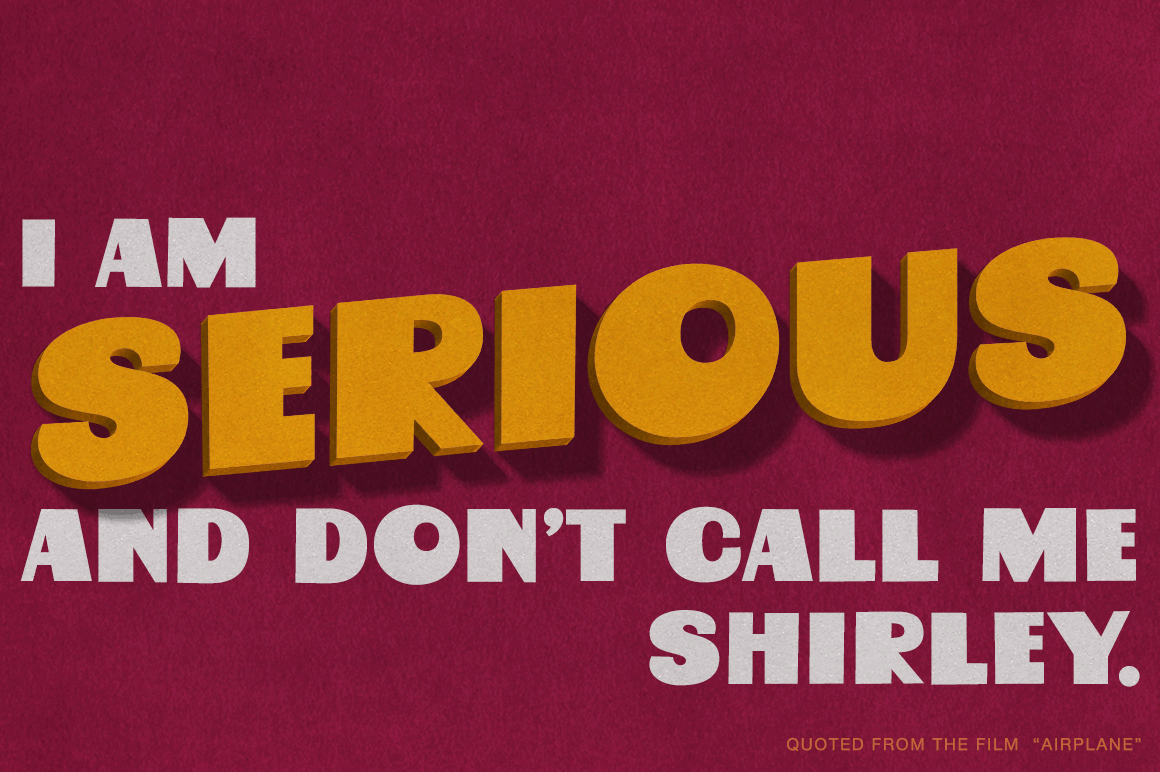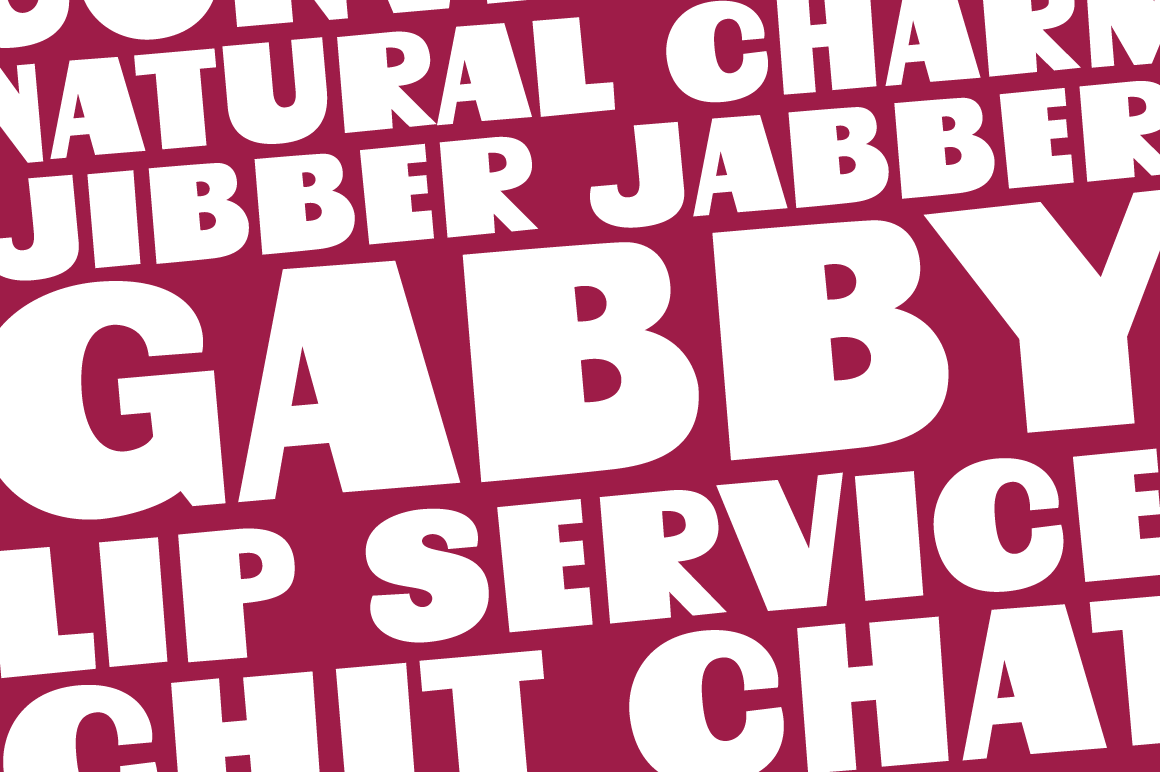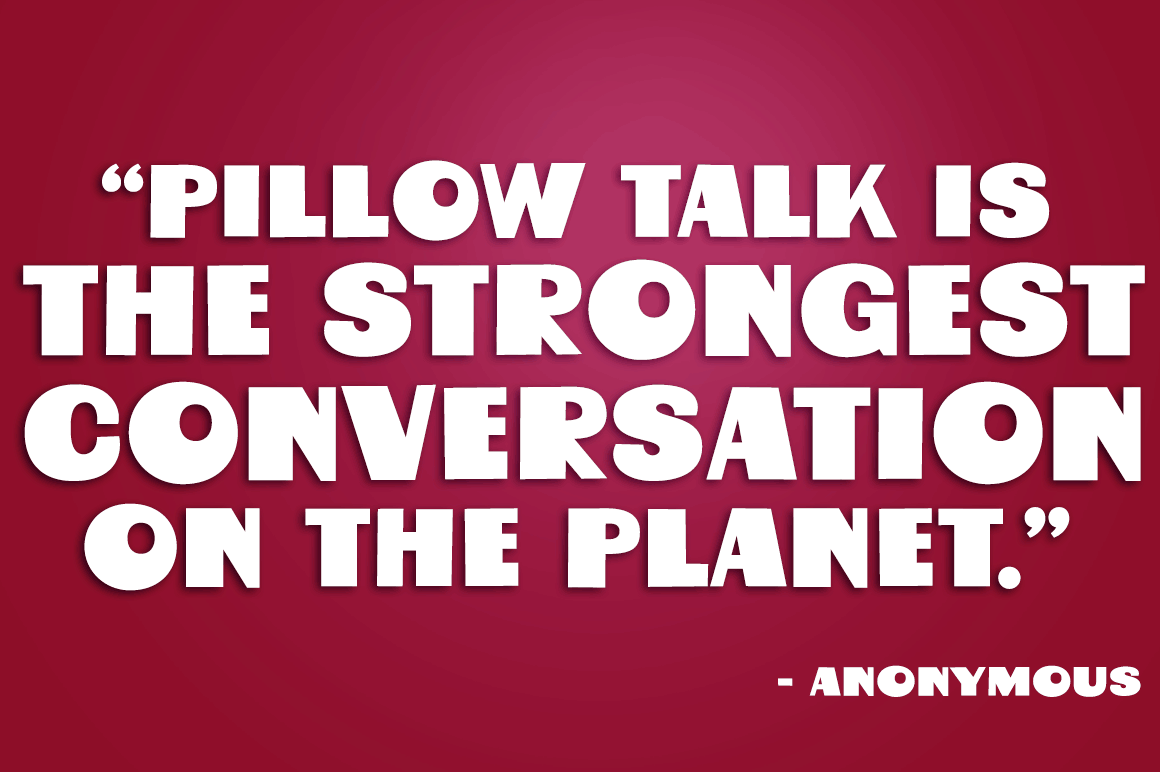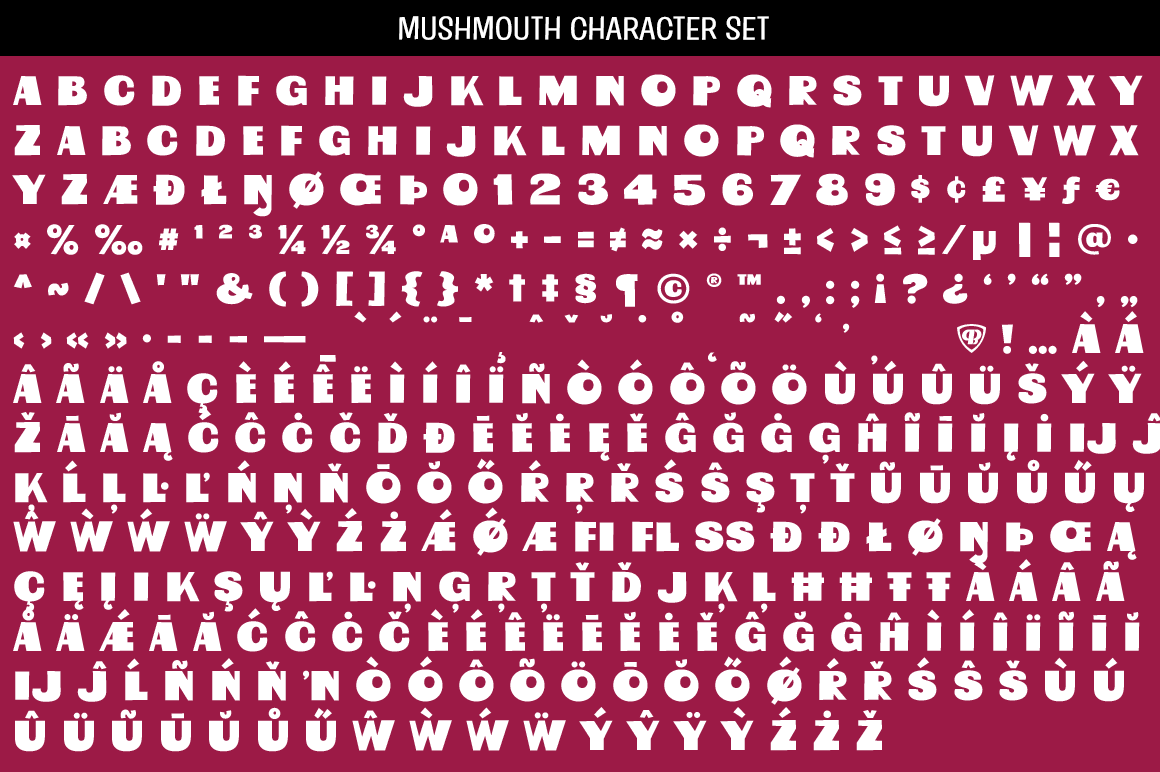
If your looking for a vintage animated typestyle that still feels current today, you\’ve just found it! Mushmouth PB started as a digitization of a film typeface called Albert by LetterGraphics. This all capitals font has a super subtle bounce and a playful…